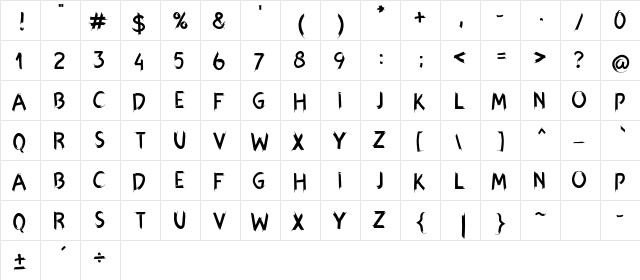
Hexen Bold Font Preview
Hexen Bold
Hexen Bold Font Details
| Foundry | Chichuca Studio |
| Designer | Christoph Nino |
Design Context for Hexen Typeface
Hexen is a composed and adaptable typeface that performs quietly and consistently across a wide range of design contexts. The heavy weight commands attention and anchors typographic hierarchies.